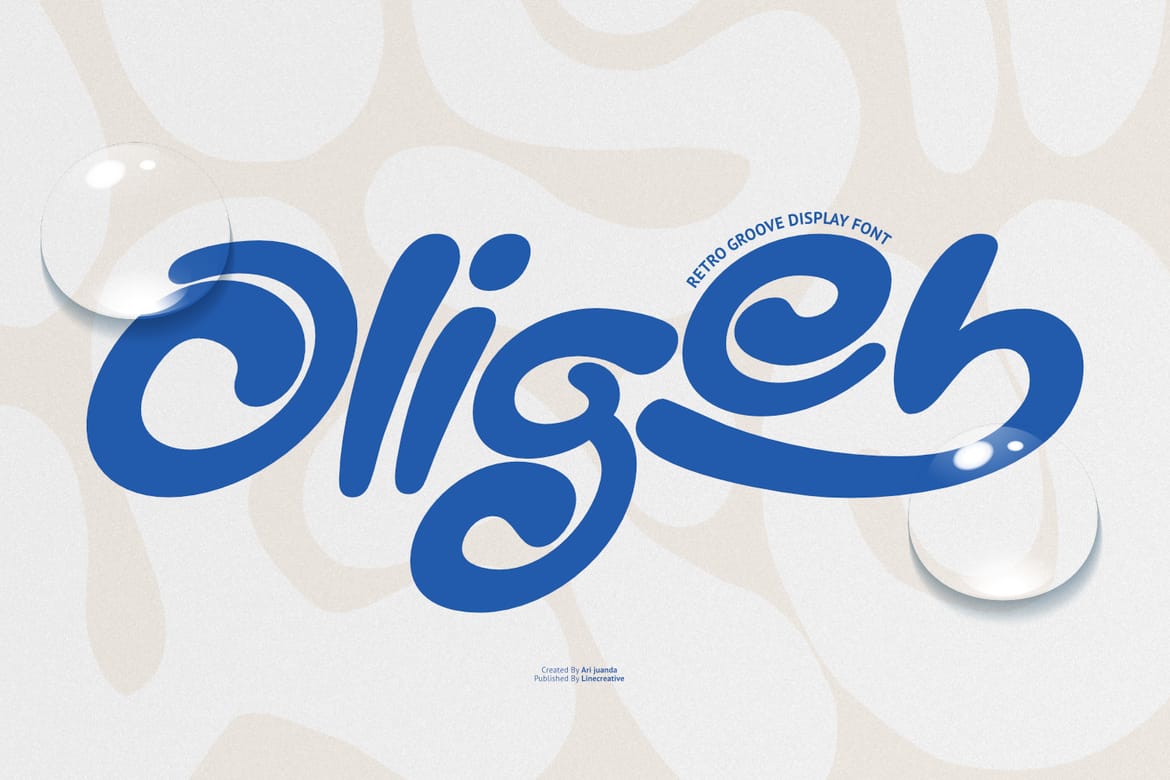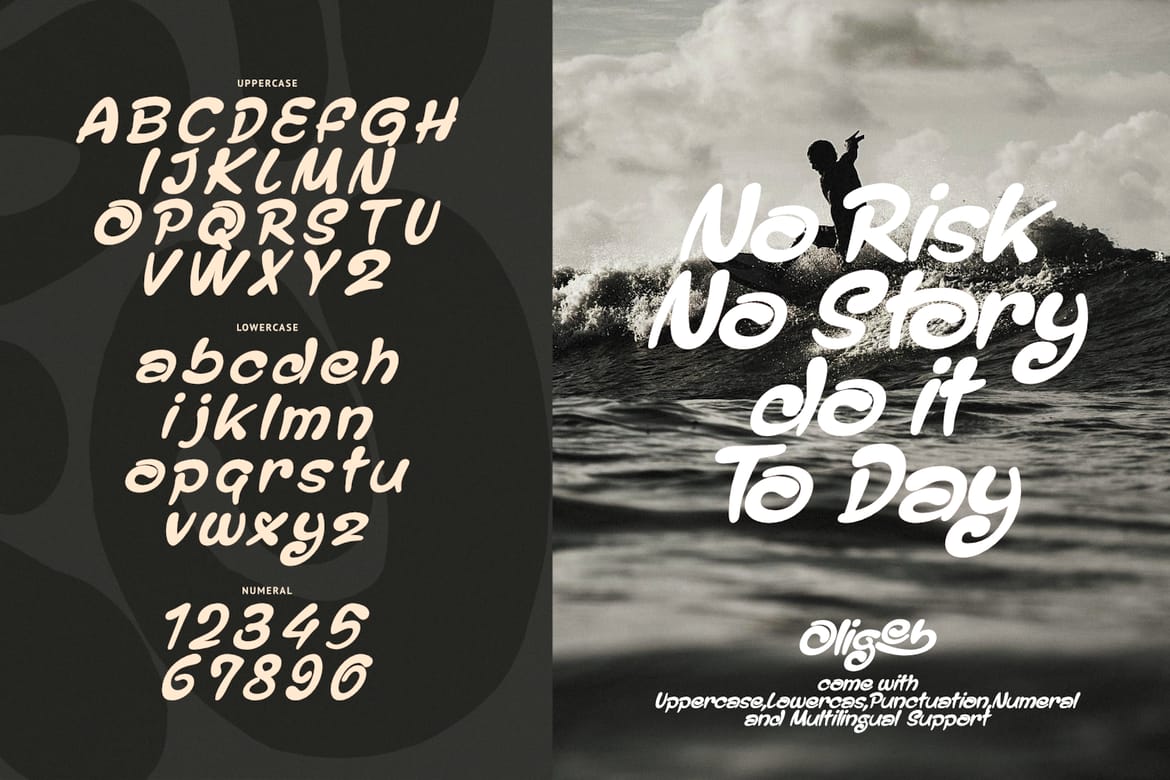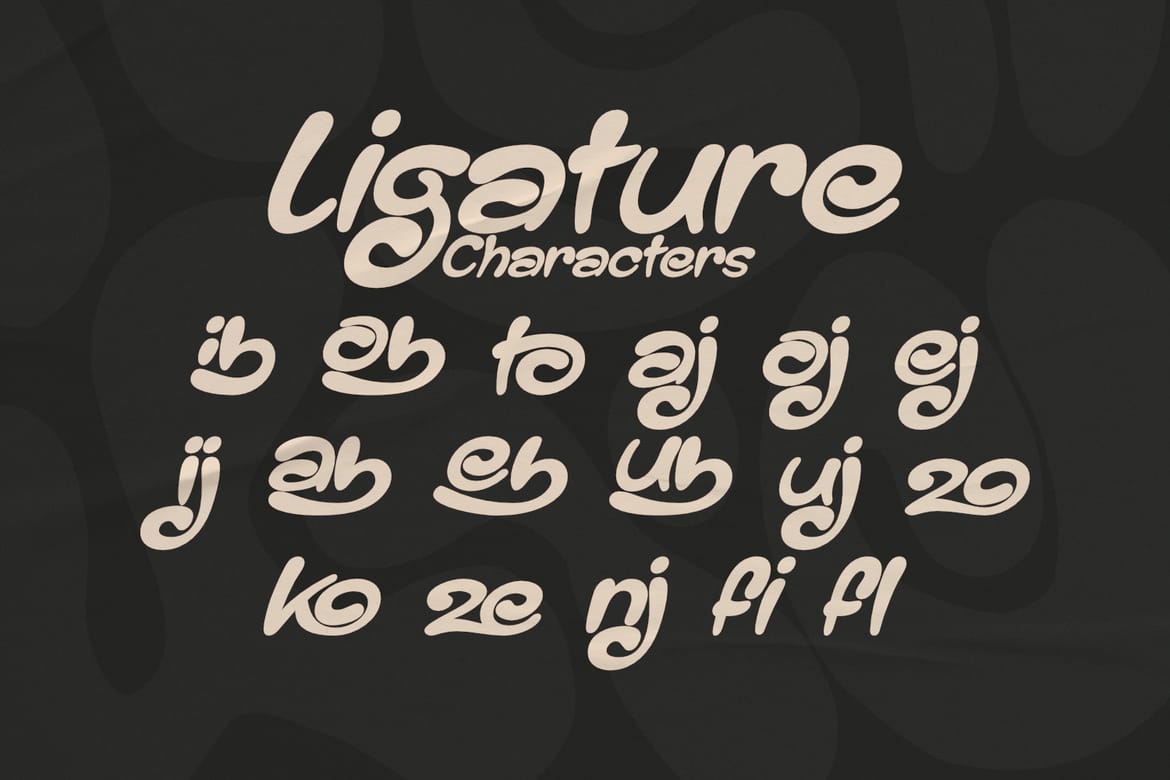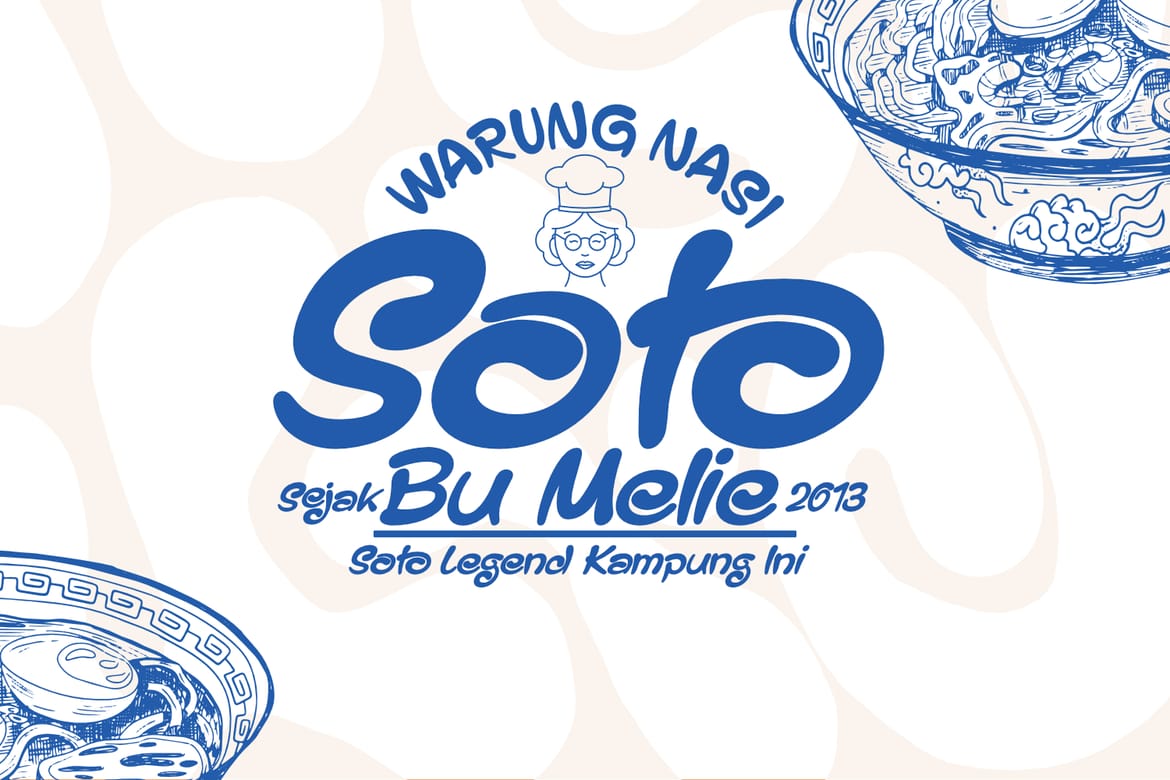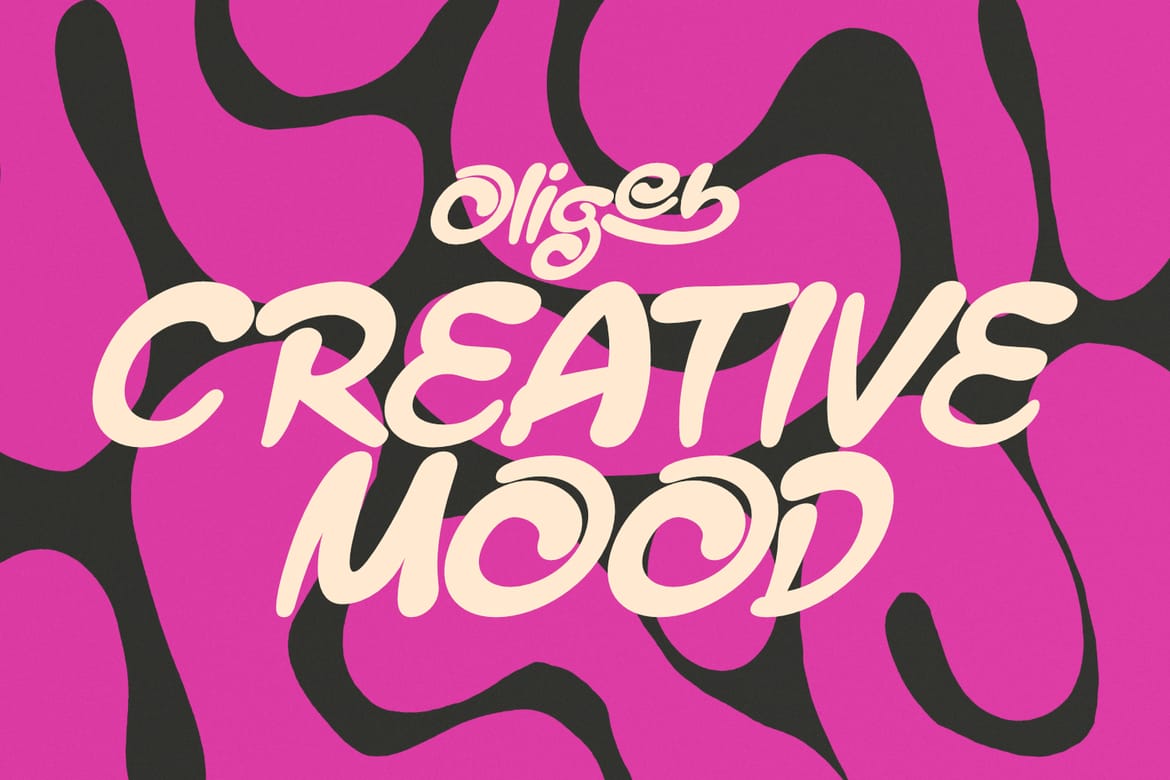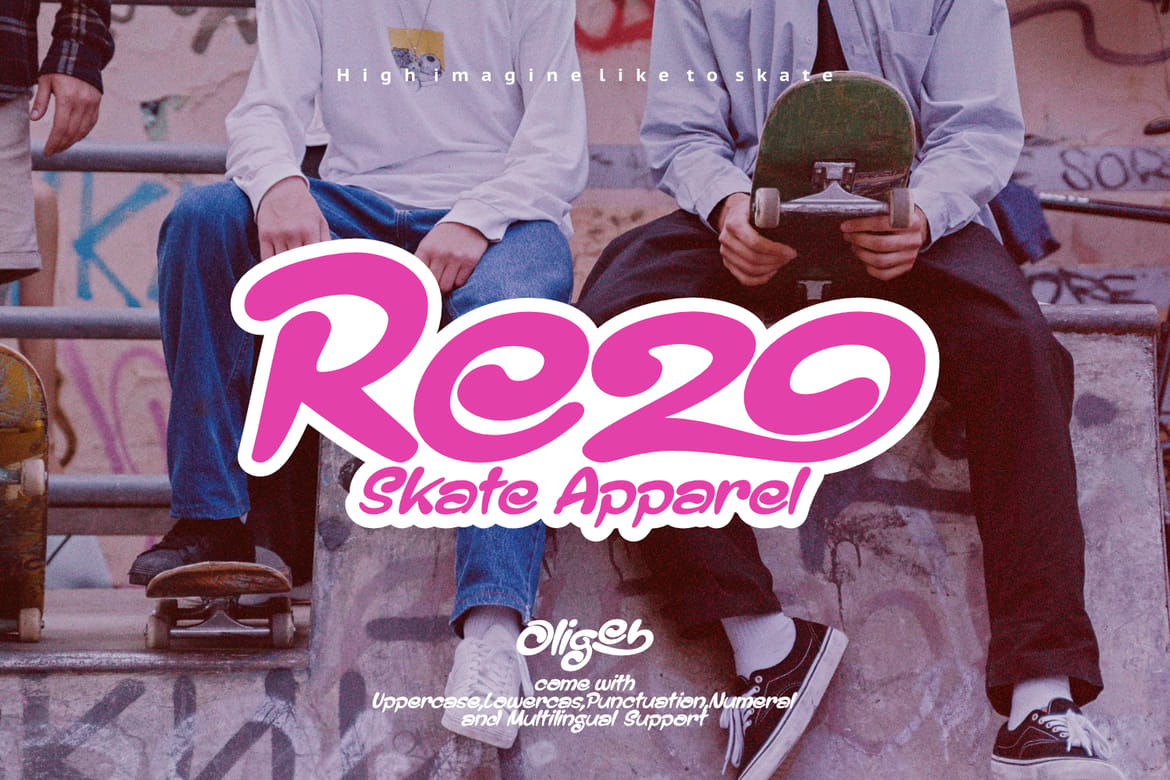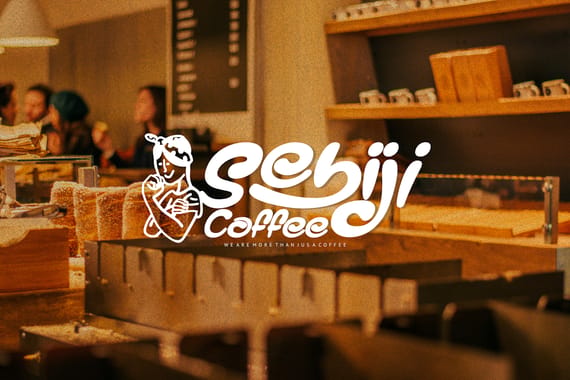
Oligeb – Retro Groove Display Font
Meet Oligeb, a bold retro groove display font inspired by the free-spirited energy of the 70s. Featuring smooth curves, playful swashes, and expressive letterforms, Oligeb brings a nostalgic yet fresh personality to every design.
Crafted with a unique groovy style, this font captures the essence of vintage music culture, surf lifestyle, funky branding, and retro-inspired visuals. Its flowing shapes and handcrafted feel make it perfect for creating eye-catching logos, packaging, posters, apparel, album covers, and social media content.
Whether you're designing a retro coffee brand, a summer event poster, a vintage-inspired product label, or a playful logo, Oligeb helps your work stand out with warmth, character, and timeless charm.
Why You'll Love Oligeb
• Authentic Retro Groove Style
• Unique Handcrafted Letterforms
• Smooth Curves and Dynamic Swashes
• Strong Branding Potential
• Uppercase & Lowercase Characters
• Numerals and Punctuation
• Multilingual Support
• Easy to Use
Perfect For
• Retro & Vintage Branding
• Coffee Shops & Restaurants
• Surf and Beach Lifestyle Designs
• Music Posters & Festival Artwork
• Packaging Design
• T-Shirt and Merchandise
• Logo Design
• Social Media Graphics
• Creative Advertising
Bring the spirit of the 70s into your designs and let Oligeb deliver bold personality, playful movement, and unforgettable retro charm.